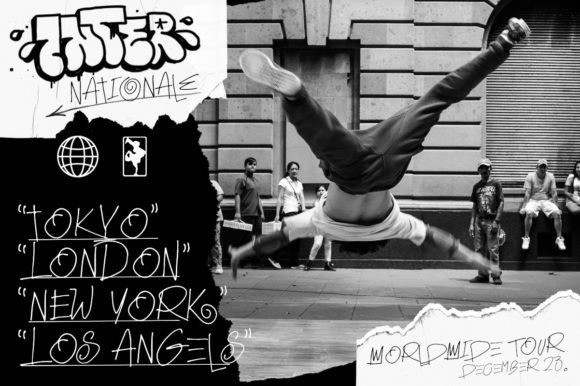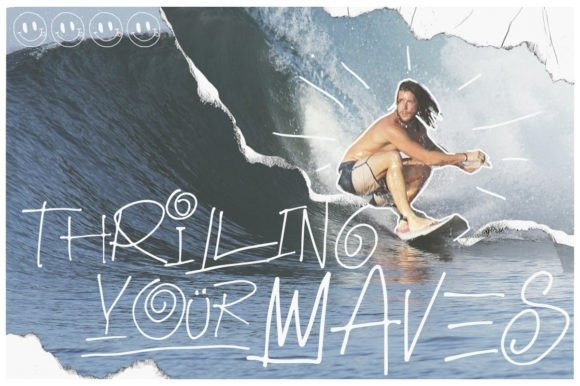
Famous Starss Font
Famous Starss Font is a cool and quirky display font inspired by the rudimentary 80’s graffiti art. Its unique, childish nature is perfect for titles, logos, product packaging, branding projects, magazines, social media, and even just to express words above a background. This font is PUA encoded which means you can access the glyphs and alternates with ease!